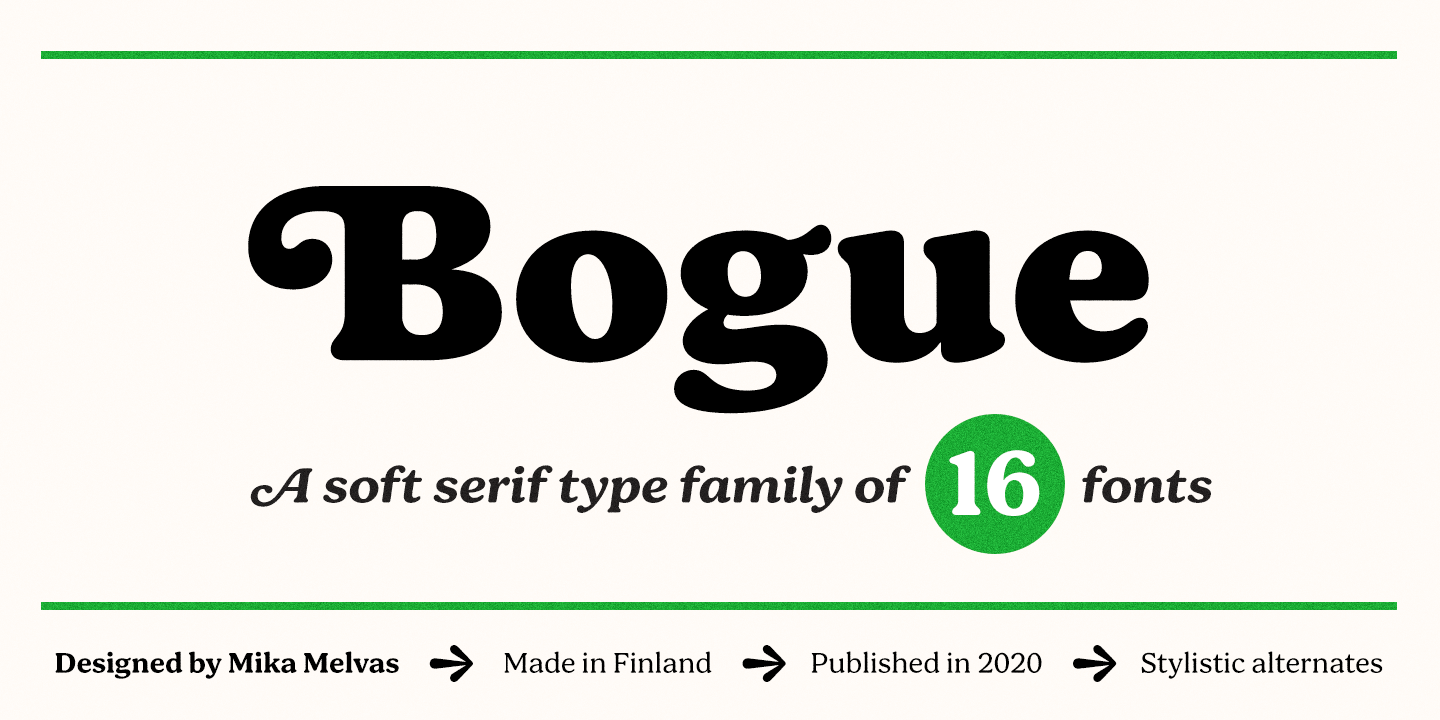
Bogue Font is perfect for underground music venues, alternative lifestyle branding, countercultural publications, rebellious fashion labels, independent record labels, and edgy artistic projects. Its unconventional character makes it ideal for punk rock bands, alternative art galleries, underground magazines, rebel streetwear brands, and any application requiring nonconformist typography that conveys artistic rebellion, creative independence, and authentic underground culture.
Bogue Font is exciting because it embodies the raw spirit of creative rebellion through deliberately unconventional letterforms that challenge traditional typographic norms and celebrate artistic nonconformity. Its distinctive character and rebellious proportions reflect the authentic voice of underground culture and independent creativity, making it perfect for organizations seeking to project genuine artistic integrity and countercultural credibility. The font's rogue nature instantly communicates authenticity and creative fearlessness.
Bogue Font family includes rebellious weight variations typically featuring Regular, Medium, and Bold options with unconventional styling that maintains underground authenticity. The family often incorporates alternative characters, countercultural symbols, and artistic variations designed for independent creative applications, providing designers with comprehensive tools for creating authentic, rebellion-inspired typographic expressions.